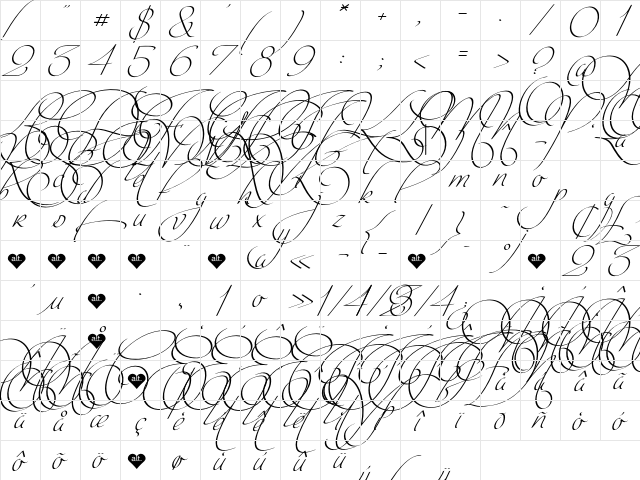
Intima Script One Regular
| Foundry | Maximiliano R. Sproviero |
| Designer | Maximiliano R. Sproviero |
Design Context for Intima Script One Typeface
Intima Script One brings a calligraphic fluidity to the page — its connecting strokes and expressive curves give it an unmistakably human quality.
Font Pairing: Combine Intima Script One with a simple geometric sans for maximum contrast — the tension between flowing curves and clean structure is a classic typographic pairing.
Pro Tip: Use Intima Script One for short runs of text — names, titles, or taglines. Extended body copy in script faces tires the eye quickly.